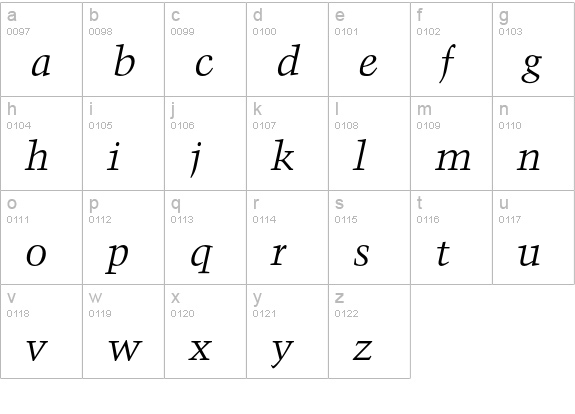
Trump Mediaeval Italic Old Style Figures is a distinctive, italic variant in the Trump typeface family \xE2\x80\x94 well suited to design and typography projects.
Introducing Trump Mediaeval Italic Old Style Figures font, a timeless and sophisticated typeface that effortlessly captures the essence of medieval calligraphy with a modern twist. This font exudes elegance and charm, making it the perfect choice for projects that require a touch of old-world beauty. With its gracefully slanted italic design and intricate details, Trump Mediaeval Italic Old Style Figures font brings a sense of class and refinement to any text. Each character is meticulously crafted to reflect the artistry of traditional manuscript writing, resulting in a truly authentic and captivating typeface. But what sets Trump Mediaeval Italic Old Style Figures font apart is its unique inclusion of Old Style Figures. These numerals, with their varying heights and classic proportions, add a touch of historical authenticity to your designs. Whether you're creating a vintage-inspired invitation, a medieval-themed logo, or a captivating book cover, these figures will undoubtedly enhance the overall aesthetic. Moreover, what makes this font even more remarkable is that it is freely available to download at FontsMarket.com. Yes, you read that right - you can access the beauty and elegance of Trump Mediaeval Italic Old Style Figures font without any cost. It's a generous offer that allows designers, writers, and enthusiasts to add a touch of timeless beauty to their creations, without breaking the bank. So, why wait? Unleash your creativity and embark on a journey through time with Trump Mediaeval Italic Old Style Figures font. Download it for free at FontsMarket.com and experience the allure of medieval calligraphy blended with modern sensibilities. Let your designs stand out, inspired by the richness of history and the artistry of typography.